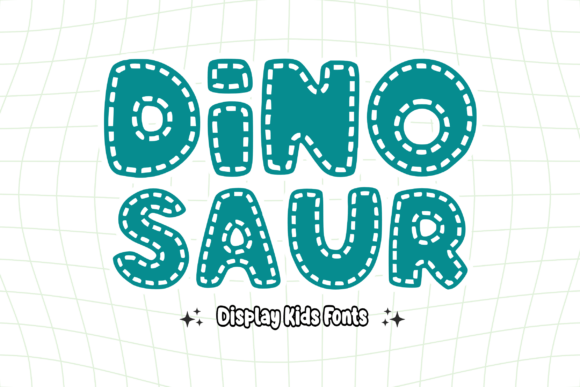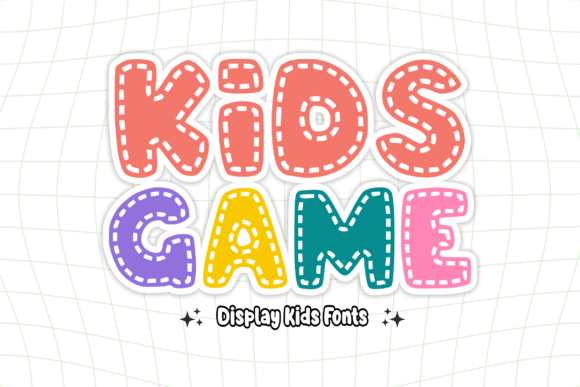
Unlocking Imagination with Kids Zone Font
Who among us hasn’t been captivated by the magical world of children’s imagination? Their boundless creativity is something we can all learn from, and it’s precisely this spark that inspired the creation of Kids Zone Font – a modern decorative font designed specifically for kids.
With its cheerful design and easily recognizable characters, Kids Zone Font is perfect for sublimation design on a wide range of products, from t-shirts and mugs to tote bags and animations. As a designer, you’ll love the versatility and playfulness of this font, making it an invaluable addition to your toolkit. Whether you’re working on a comic title, a children’s book, or a fun animation, Kids Zone Font is sure to bring a smile to the faces of both kids and adults alike.
Kids Zone Font Key Features
- Font Family: Kids Zone is a sans-serif font designed specifically for children’s content, making it perfect for educational materials, children’s books, and websites.
- Font Size: Designed to be highly legible at small font sizes, making it ideal for digital displays and print materials.
- Resolution: Optimized for high-resolution displays, including HD and 4K monitors, ensuring crisp and clear text rendering.
- Unique Characteristics: Kids Zone features a playful and approachable design, with rounded edges and a friendly tone, making it perfect for engaging children with reading materials.
Kids Zone Font Review
As a designer, I was excited to explore the “Kids Zone Font” and see how it could bring a playful touch to my projects. Here’s my honest review.
- Unique and quirky characters: The font features fun and expressive characters that are perfect for kids’ content.
- Versatile: It can be used for a wide range of applications, from branding to illustrations.
- Easy to read: Despite its playful nature, the font is still easy to read, even for young children.
- Limited language support: The font may not support all languages, which could be a limitation for global projects.
- No OpenType features: The font doesn’t include advanced features like ligatures or contextual alternates.
- May not be suitable for formal projects: The font’s playful nature may not be suitable for more formal or professional projects.
The “Kids Zone Font” is a fun and creative font that’s perfect for kids’ content. While it has some limitations, it’s still a great option for designers looking to add a playful touch to their projects. Overall, I’d give it 4 out of 5 stars.
The Kids Zone Font is ideal for:
Children’s educational materials
Playground signs and graphics
Children’s party invitations and decorations
Use the Kids Zone Font in conjunction with bright colors and playful graphics to create a fun and engaging design.
Experiment with different font sizes and styles to add visual interest to your design.